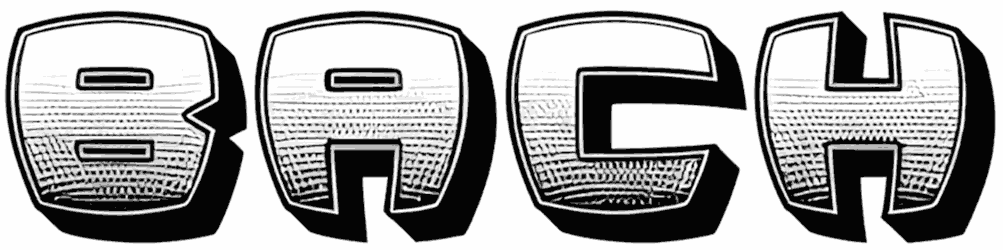
Bach Font
We have just added Bach, a 50s font that offers two distinctive versions to graphic artists and widens their selection range in the middle of designing graphic content including illustrations, children’s book covers, video game banners, and the user interface of applications.
Since this all-caps fancy font comes with hollow characters and a dotty style, it can share a sense of jauntiness, dynamism, innovation, or playfulness with the audience.